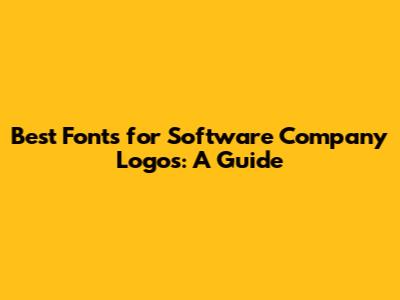
- Brand Identity: Your font helps define your brand identity. Is your company modern and sleek? Or more established and trustworthy? The font should align with your brand values and target audience.
- Readability: A logo needs to be easily readable, even at small sizes. Choose a font that is clear and legible, ensuring that your company name is easily recognizable.
- Memorability: A unique and memorable font can help your logo stand out from the competition. Avoid generic fonts that are overused and opt for something that reflects your company's individuality.
- Versatility: Your logo will be used in various contexts, from your website and marketing materials to business cards and social media profiles. Choose a font that looks good across all platforms and mediums.
- Emotional Impact: Different fonts evoke different emotions. A bold, sans-serif font might convey strength and confidence, while a softer, rounded font might feel more approachable and friendly. Consider the emotions you want your brand to evoke and choose a font accordingly.
- Serif vs. Sans-Serif: Serif fonts have small decorative strokes at the end of each letter, while sans-serif fonts do not. Serif fonts are often seen as more traditional and formal, while sans-serif fonts are considered more modern and clean. For software companies, sans-serif fonts are generally the preferred choice, as they tend to convey a sense of innovation and simplicity. However, there are exceptions, and a well-chosen serif font can also work well.
- Weight and Style: The weight and style of the font can significantly impact the overall look and feel of your logo. A heavier weight font will appear bolder and more assertive, while a lighter weight font will feel more delicate and refined. Consider the overall aesthetic you’re trying to achieve and choose a weight and style that aligns with your brand identity.
- Kerning and Spacing: Kerning refers to the spacing between individual letters, while tracking refers to the overall spacing between all letters. Proper kerning and tracking are essential for readability and visual appeal. Pay close attention to these details when choosing and customizing your font.
- Licensing: Before using any font in your logo, make sure you have the appropriate license. Some fonts are free for personal use but require a commercial license for business purposes. Failing to obtain the necessary license can lead to legal issues down the road.
- Scalability: Ensure that the font you choose remains legible and visually appealing even when scaled down for use on small screens or printed materials. Test the font at various sizes to ensure it maintains its clarity and impact.
Proxima Nova: This is a widely popular sans-serif font known for its clean lines and geometric shapes. It's highly versatile and works well in a variety of contexts, making it a great choice for software companies that want to convey a sense of modernity and professionalism. Proxima Nova is also highly readable, even at small sizes, which is essential for logos.
Montserrat: Another excellent sans-serif option, Montserrat, has a slightly more rounded and approachable feel than Proxima Nova. It's inspired by the urban typography of Buenos Aires and has a contemporary, yet classic, look. This font works exceptionally well for software companies aiming for a friendly and innovative brand image. Montserrat's versatility also ensures it adapts well to various marketing materials.
Lato: Lato is a sans-serif typeface designed with transparency in mind. Its semi-rounded details of the letters convey warmth while retaining stability and seriousness. It's very readable and elegant, making it a fantastic choice for software companies that want to project trustworthiness and innovation. Lato maintains its clarity across different mediums, enhancing brand consistency.
Open Sans: As the name implies, Open Sans is designed to be incredibly readable and accessible. It's a humanist sans-serif typeface with a neutral yet friendly appearance. It's an excellent option for software companies that prioritize clarity and user-friendliness. The open forms and clean lines make it easily legible on both screens and print, ensuring effective communication of the brand message.
Roboto: Roboto is a modern sans-serif font family that Google developed. It has a dual nature, featuring both mechanical and geometric forms. This combination makes it incredibly versatile, suitable for various software company logos. Roboto's clean design ensures readability while providing a contemporary aesthetic that resonates with a tech-savvy audience. Its widespread availability and adaptability make it a reliable choice.
Poppins: Poppins is a geometric sans-serif typeface that is very popular for its balanced letterforms and modern appearance. It supports multiple languages and is highly legible, making it a great option for global software companies. The font's simplicity and clean design contribute to a professional and trustworthy brand image. Poppins is easy to implement across various digital platforms, ensuring brand consistency.